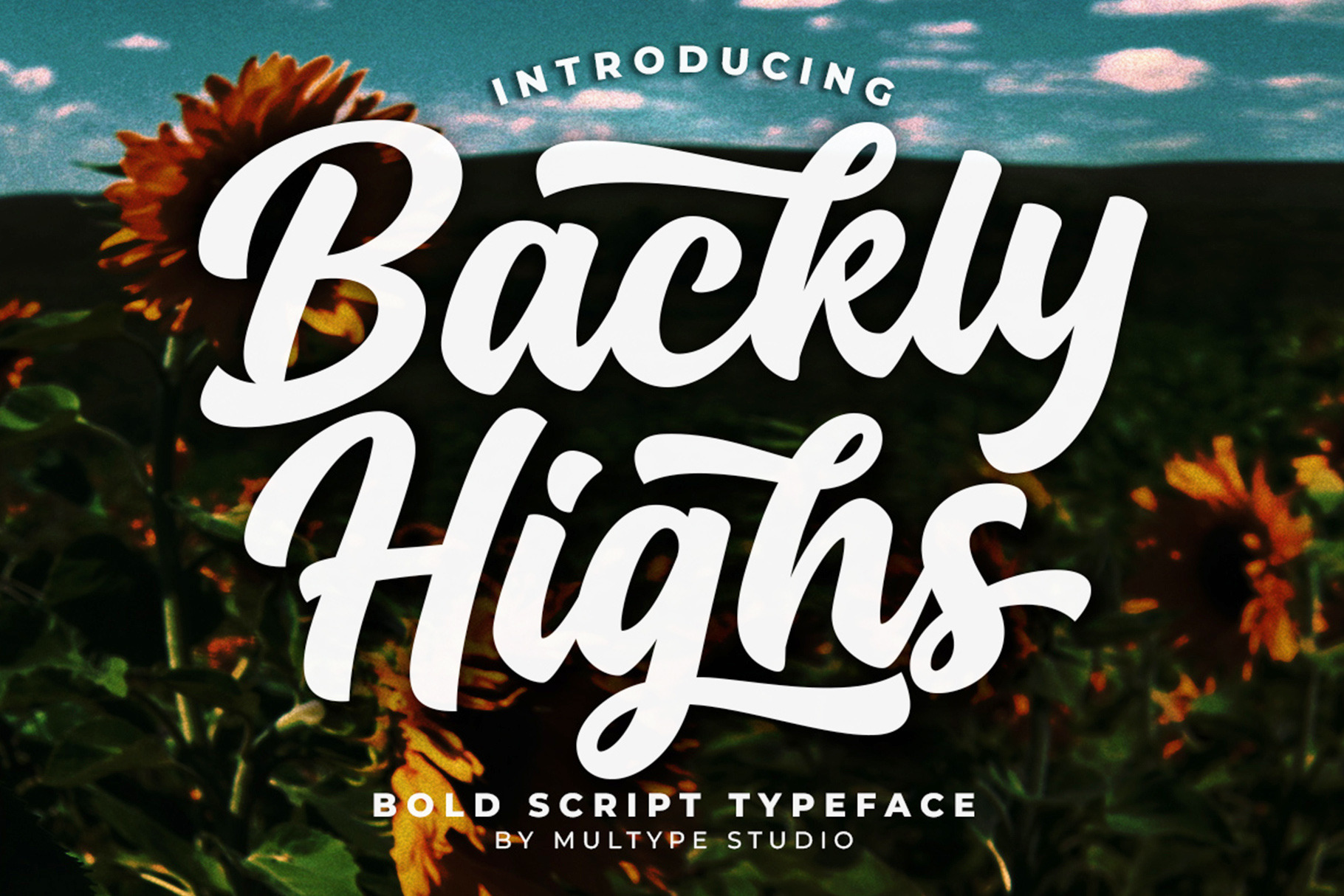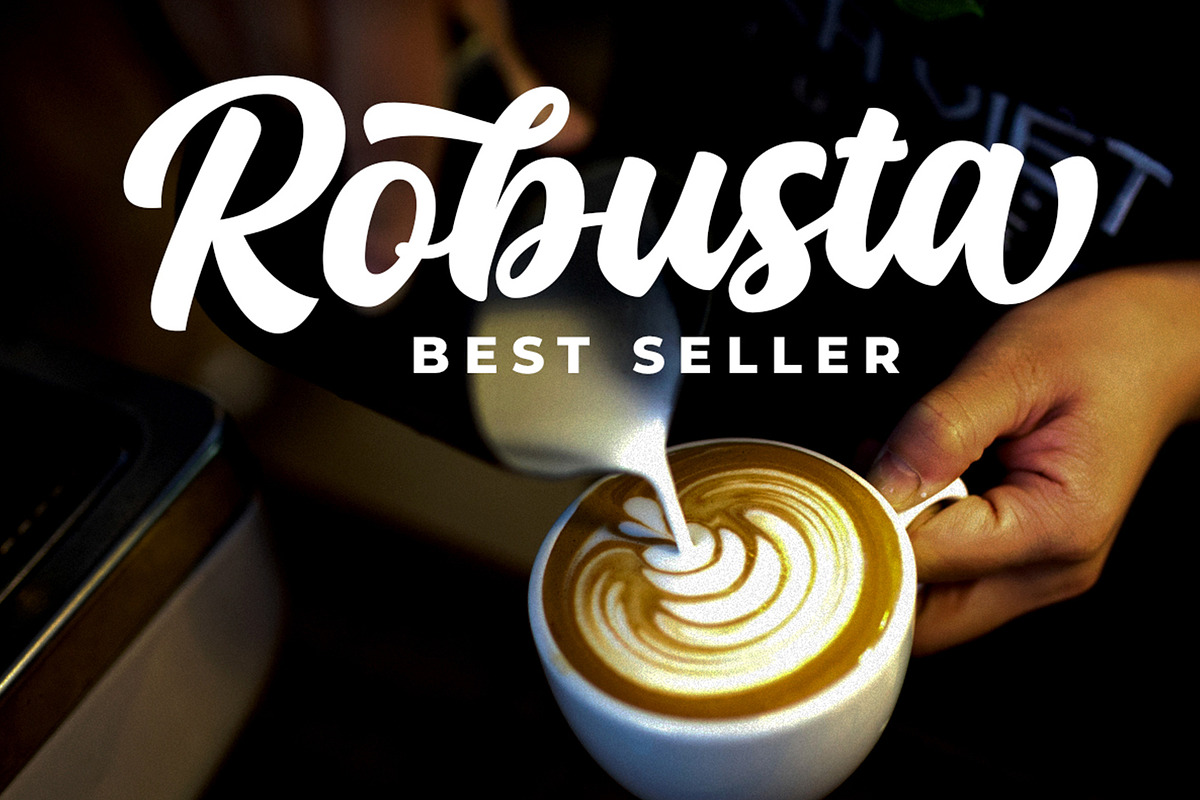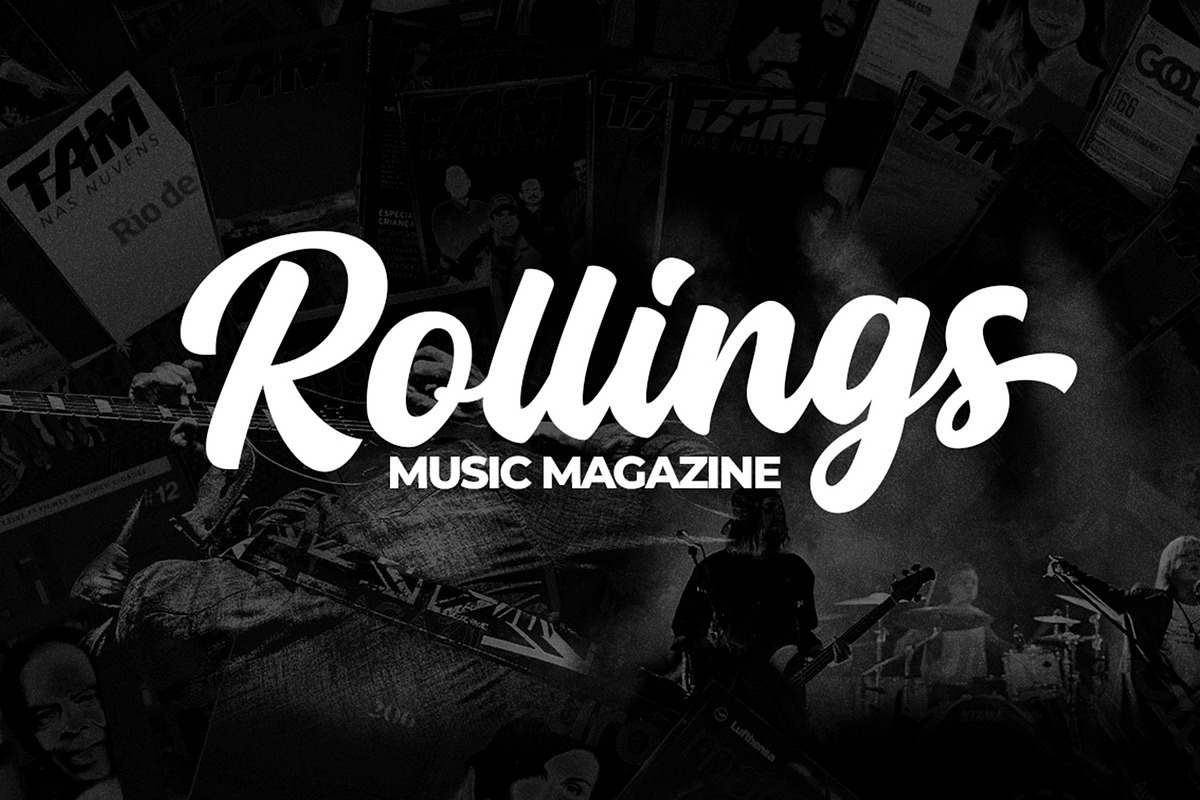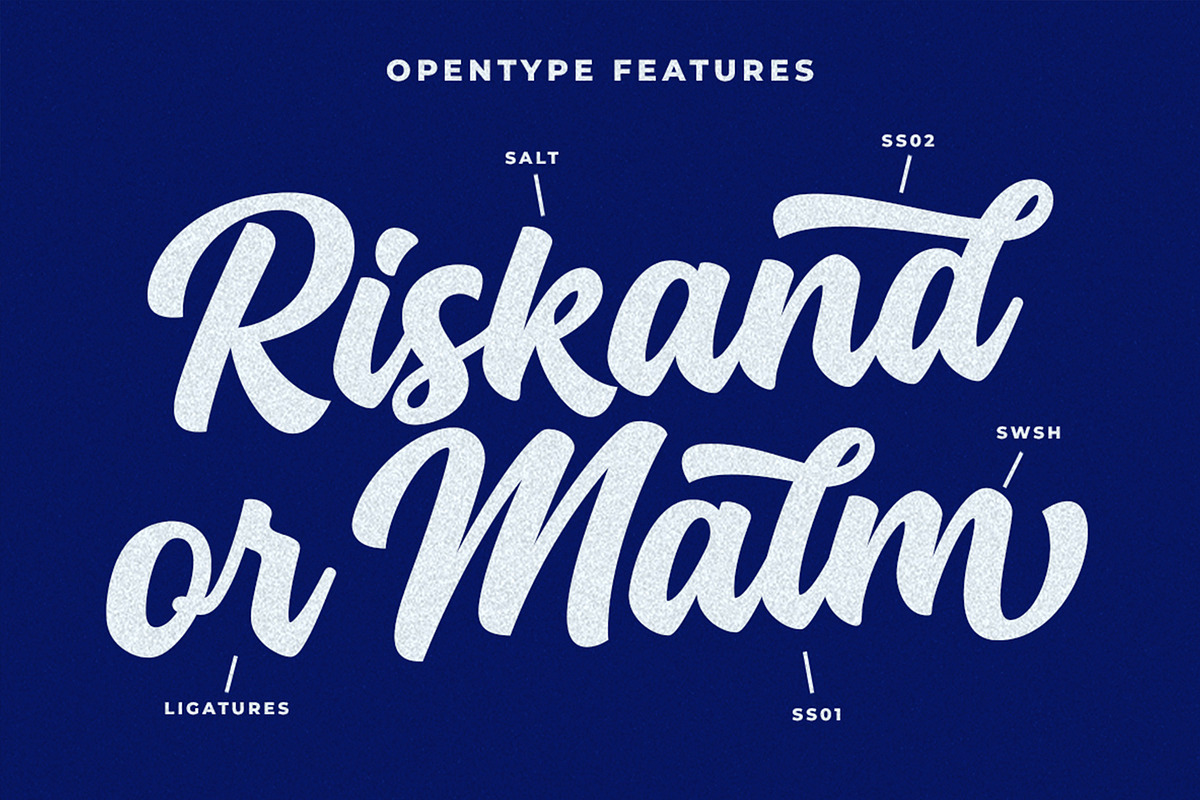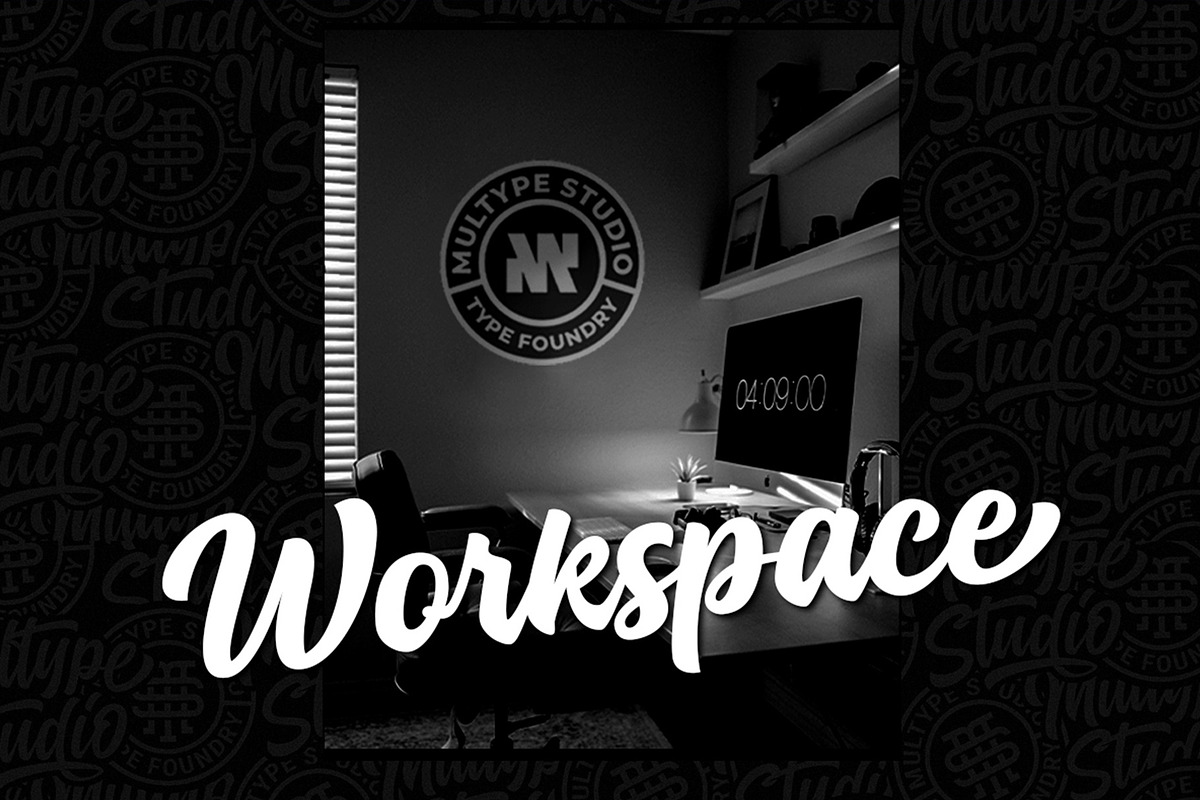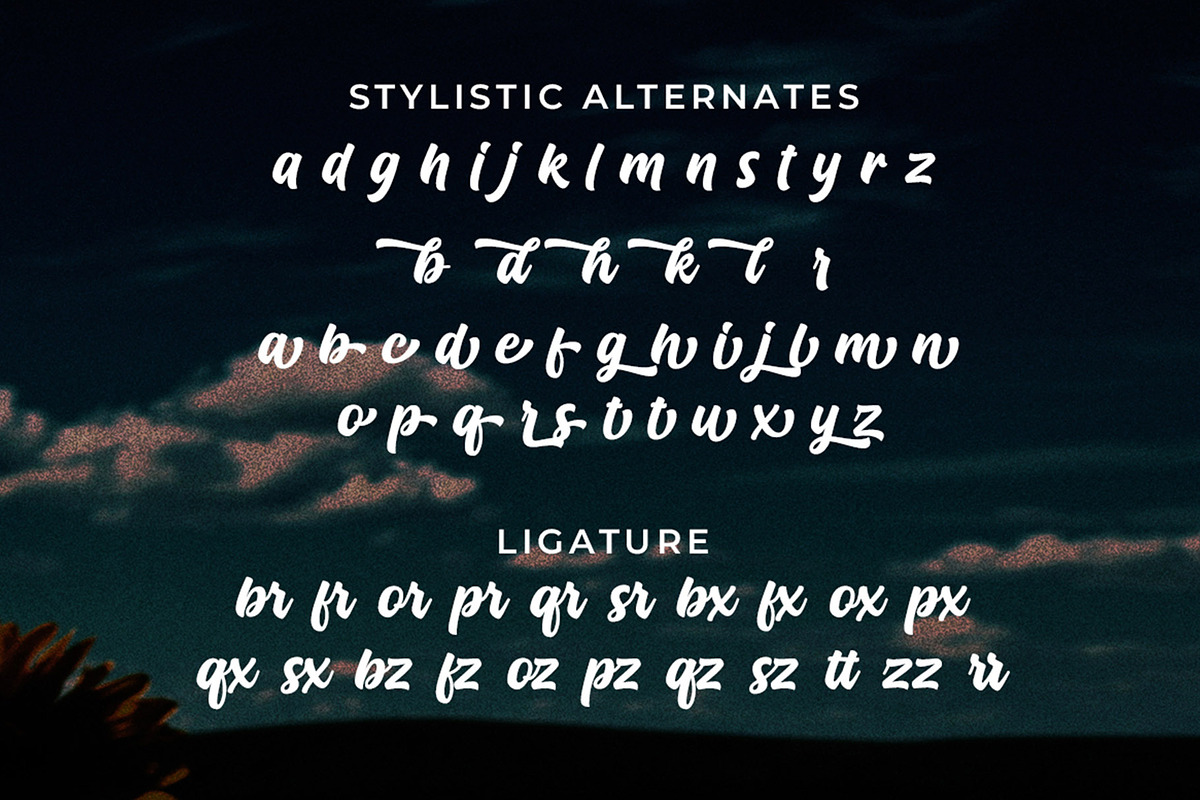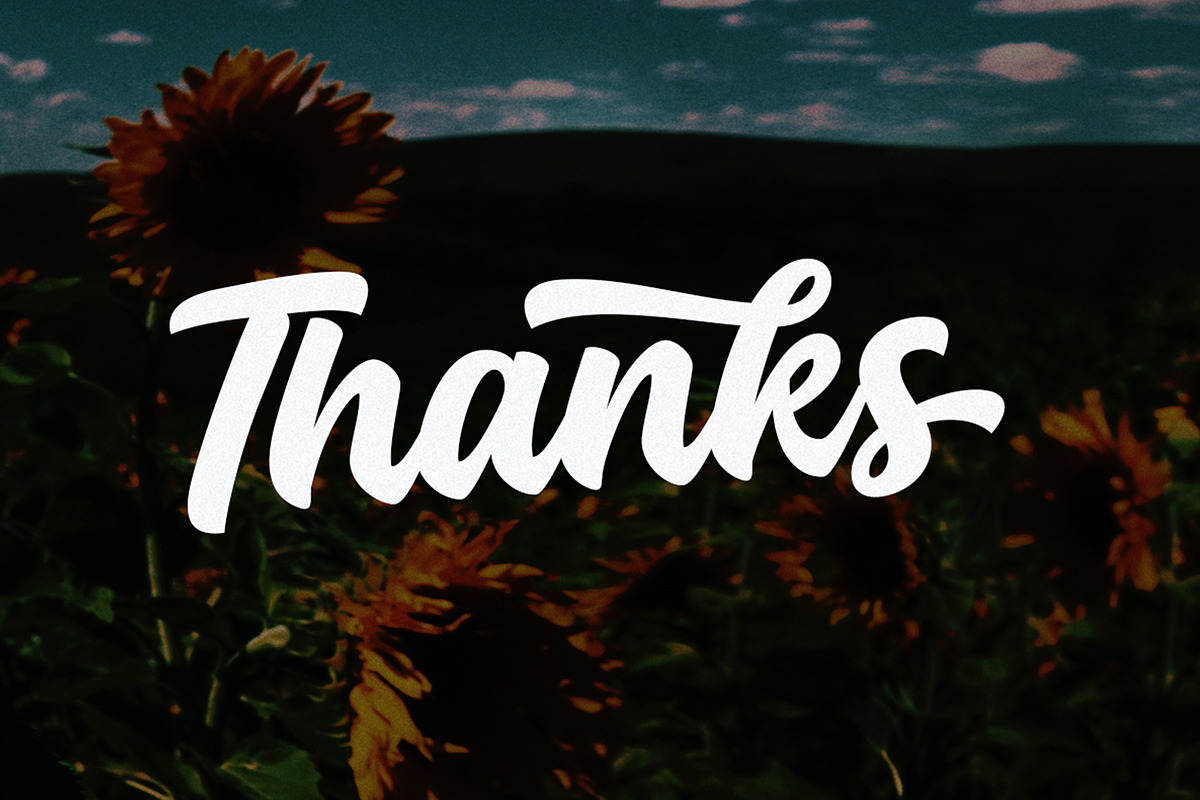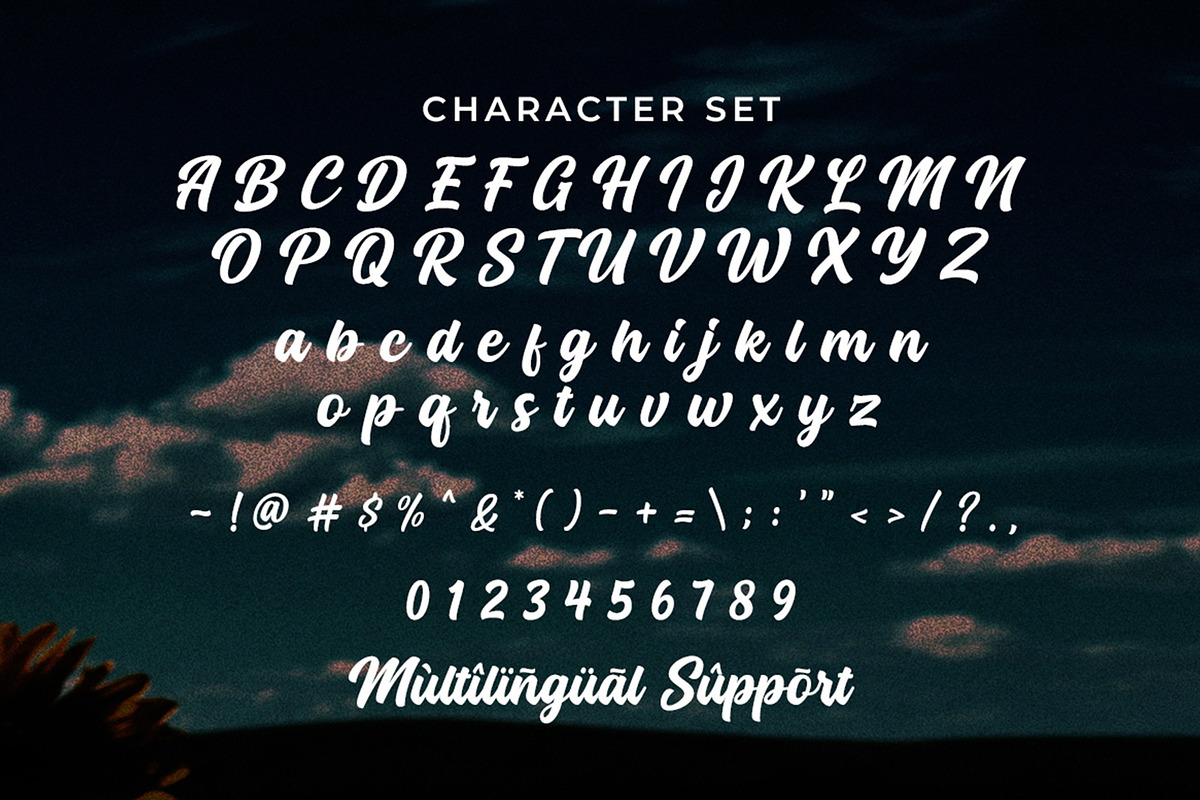
Backly Highs - Title Brand Font
Backly Highs is a bold script font. This font would perfect for logos, branding, product designs, product packaging, photography, watermark, social media posts, advertisements, invitation, stationery, labels, logos, magazines, books, greeting / wedding cards, fashion, make up, and etc.